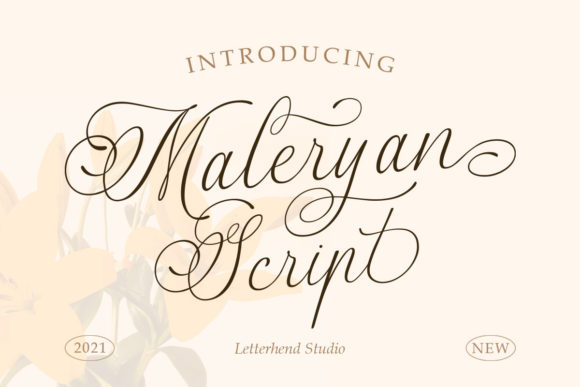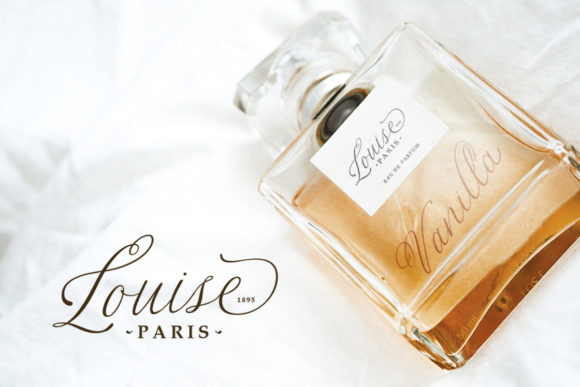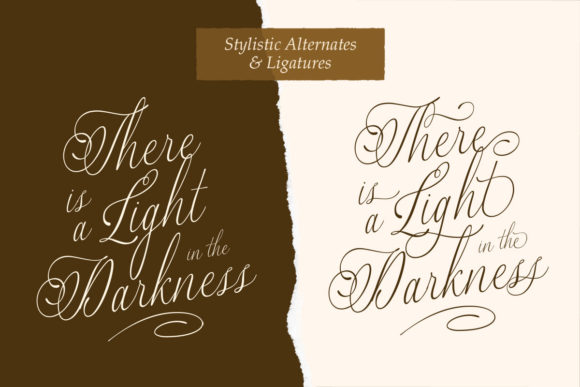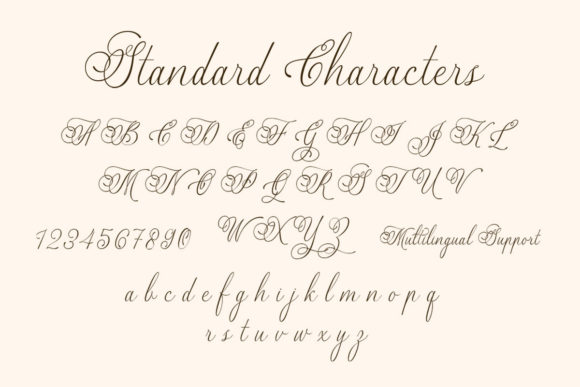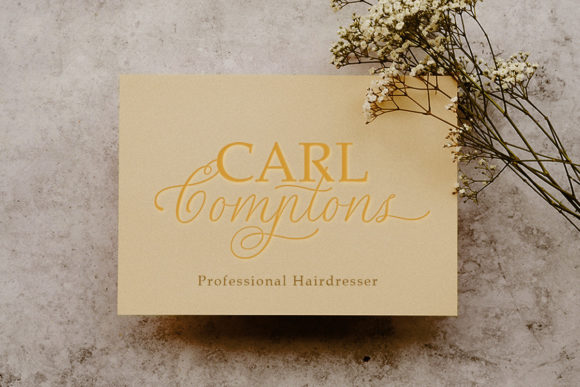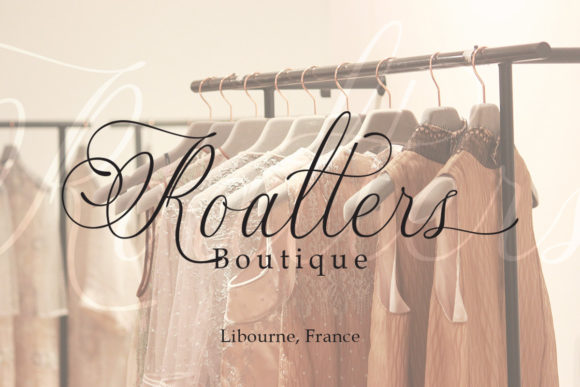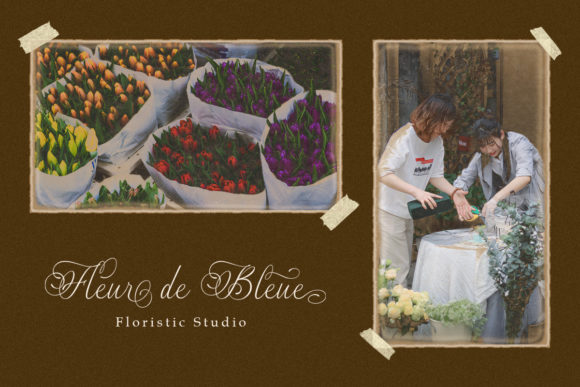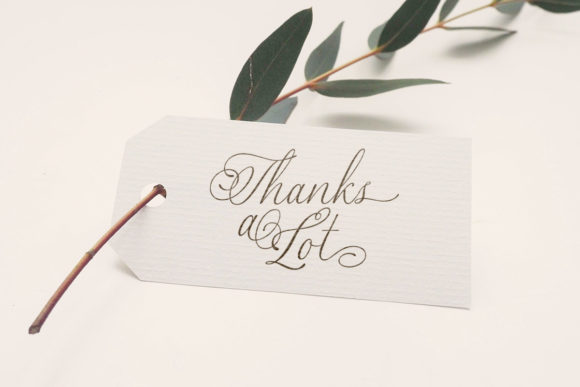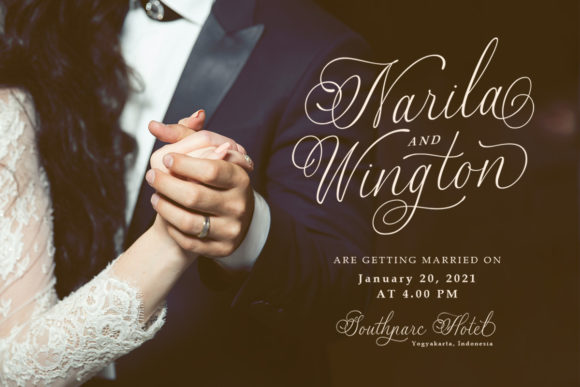
Maleryan Script Font
About Maleryan Script Font
Maleryan is a delicate and elegant handwritten font. Its distinct and well balanced letters make this font a masterpiece. Fall in love with its incredibly versatile style and use it to create spectacular designs!